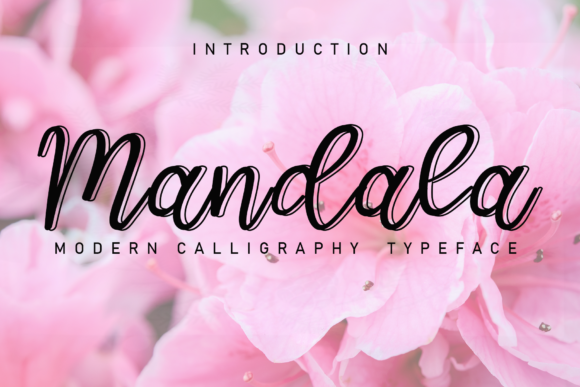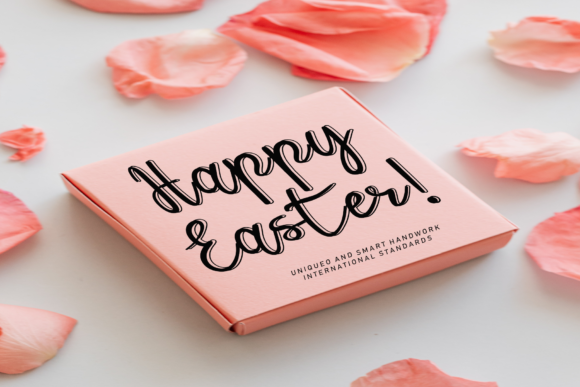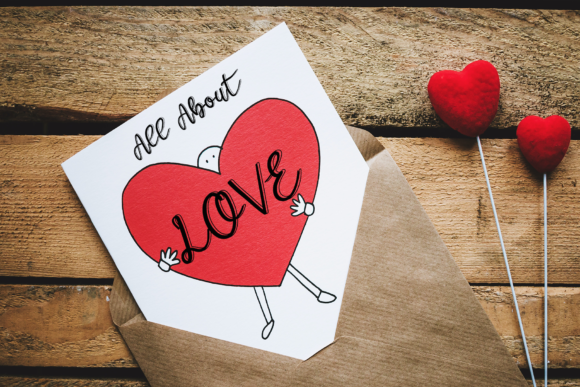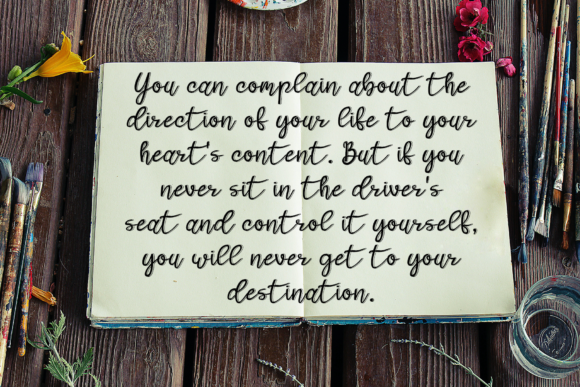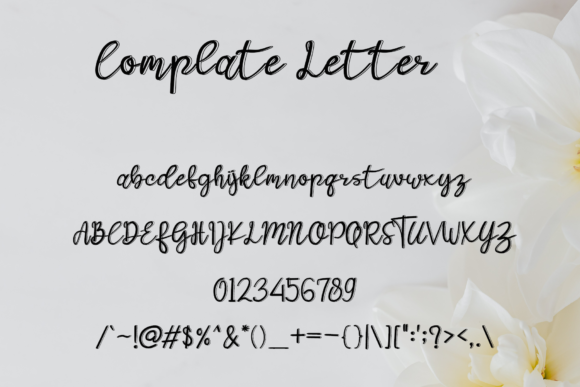
Mandala Font
About Mandala Font
Mandala is a friendly and casual handwritten font. Fall in love with it and bring your projects to the highest levels!